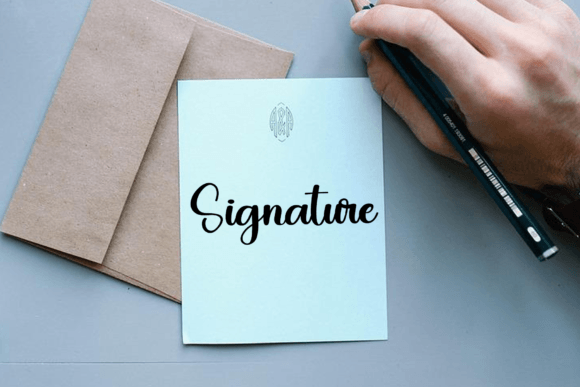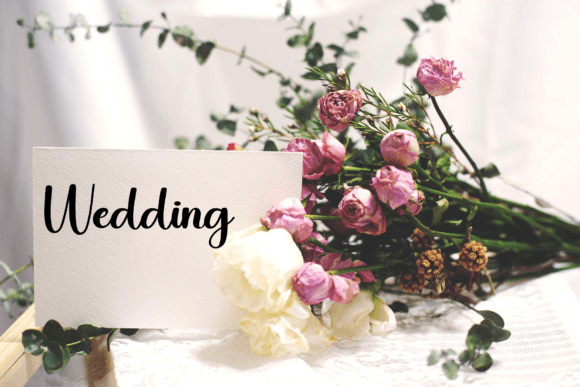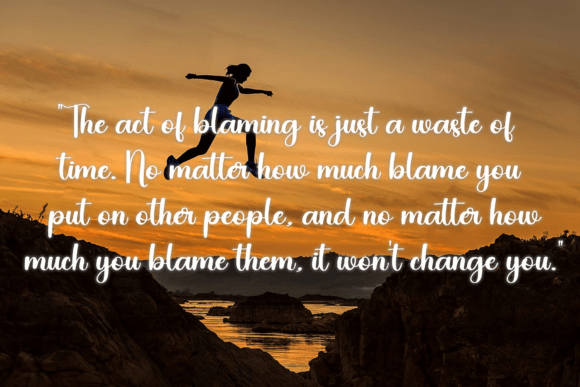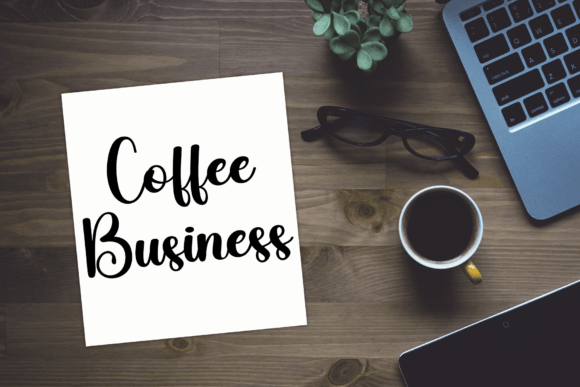
About Blue Font
Blue is a unique, round-lettered handwritten font that has been thoughtfully crafted to enhance your favorite projects. With its distinctive and rounded letterforms, this font is versatile and suitable for various applications, including writing titles, invitations, letters, and many other types of creative products.
The uniqueness of Blue lies in its round-lettered design, giving it a friendly and approachable appearance. The carefully crafted letterforms contribute to the font’s individuality, making it stand out for projects that require a touch of originality.
When used for titles, Blue adds a playful and stylish flair. The round shapes give it a soft and inviting appearance, making it suitable for a variety of creative applications, from posters to digital designs.
In invitations, Blue brings a personalized and charming touch. The handwritten style enhances the warmth of your message, creating an inviting and memorable atmosphere for recipients.
For letters or other textual content, Blue provides a distinctive look that captures attention. Its round-lettered form sets it apart, making your written communication more visually interesting and engaging.
The versatility of Blue allows it to adapt to various types of projects, adding a unique and creative dimension to your designs. Whether you’re working on print materials, digital graphics, or other creative endeavors, Blue is ready to enhance your projects with its carefully crafted round-lettered style.
In summary, Blue is more than just a font; it’s a design asset that brings a unique and round-lettered handwritten style to your favorite projects. Whether you’re writing titles, invitations, letters, or other textual content, Blue adds a touch of originality, making your designs stand out with its distinctive and carefully crafted aesthetic.